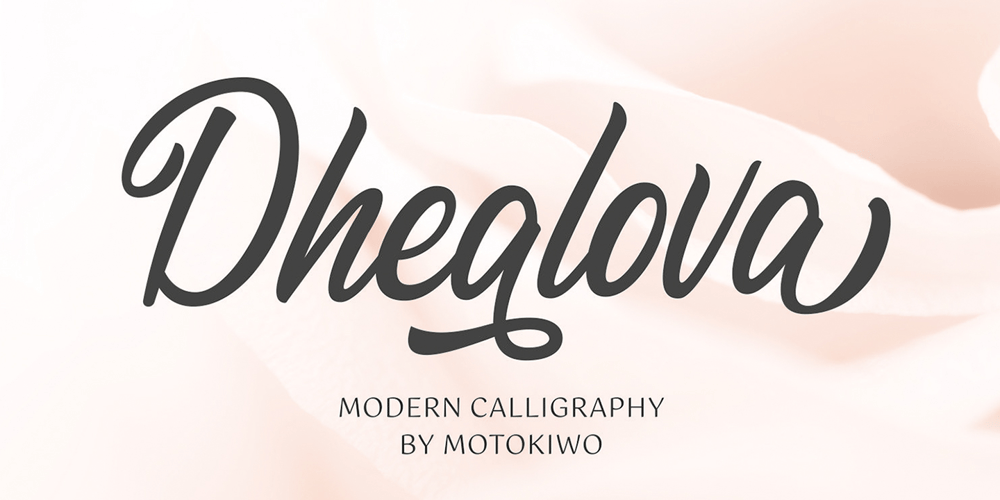
Dhealova
Dhealova font
Dhealova Font Family was designed by Anton Cahyono and published by Motokiwo. Dhealova contains 1 styles and family package options. Dhealova is a sweet and romantic font. It’s a pretty script that very recommended for weddings, fashion, posters, and much more. This font contains uppercase, lowercase, numbers, punctuation, ligature, contextual alternates, stylististic alternates, and multilingual support.